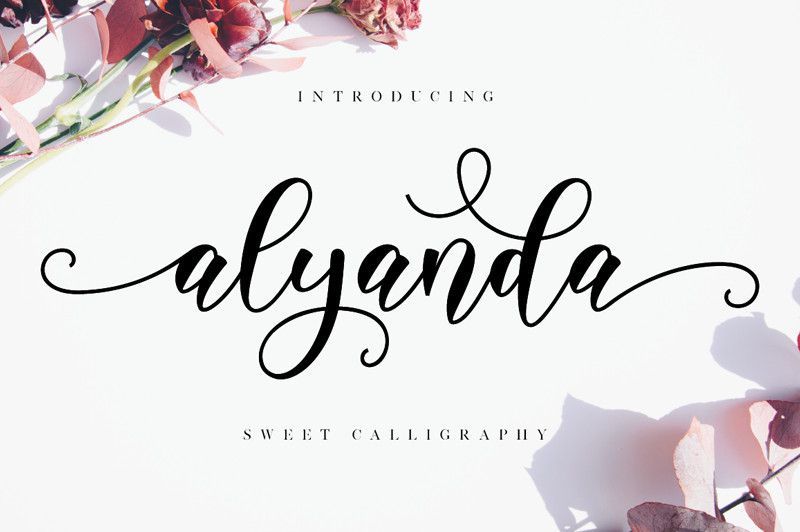
Alyanda Calligraphy Font
Alyanda is a beautiful script font with a classy, elegant, and modern look. It will add a personal touch to any design project!